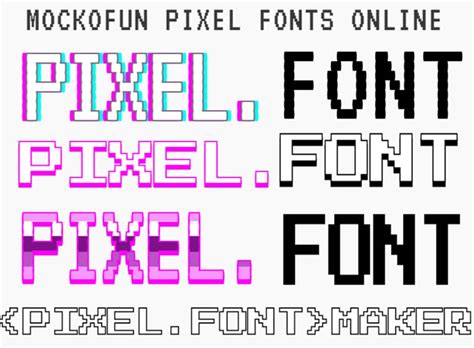
Pixify Your Text with Our Free Pixel Font Generator - Create Eye-Catching Designs Instantly!
Are you tired of using boring fonts for your designs? Do you want to add a touch of retro charm to your website or social media posts? Look no further than our free Pixel Font Generator!
This tool allows you to easily create eye-catching designs with customizable pixelated text.
Do you need a font that pops off the page and catches the reader's attention? Our Pixel Font Generator can help you with that. With a variety of styles and sizes to choose from, you can find the perfect pixelated font for your project.
But why should you choose a pixel font in the first place? Well, did you know that studies have shown that people are more likely to remember and recognize images that feature strong visual elements? By using a pixel font, you can instantly make your text more memorable and engaging.
Perhaps you're worried that creating pixelated text will be difficult or time-consuming. Fear not! Our generator is incredibly user-friendly and produces high-quality results in just seconds.
So what are you waiting for? Pixify your text and elevate your designs with our free Pixel Font Generator today!
Creating Eye-Catching Designs with Pixel Fonts
If you're looking for a way to add some visual interest to your designs, pixel fonts are a great option. Unlike other fonts, which are designed to be legible at various sizes, pixel fonts are specifically built to look their best at very small sizes.
What Are Pixel Fonts?
Pixel fonts, also known as bitmap fonts or raster fonts, are fonts that are designed on a grid of pixels. Each pixel is carefully placed to create crisp, clear letters that are easy to read, even at very small sizes.
Because pixel fonts are so small, they're often used in video games, where designers need to fit a lot of information into a limited space. But pixel fonts can also be used in other types of design, from web graphics to posters and banners.
The Benefits of Using Pixel Fonts
There are many benefits to using pixel fonts in your designs. One major advantage is that they are highly legible, even at very small sizes. This means that you can fit more text into a smaller space, giving you greater design flexibility.
Another benefit of pixel fonts is that they have a distinctive, retro feel that can add a touch of nostalgia to your designs. If you're going for a vintage look, pixel fonts can be a great way to achieve it.
Introducing Pixify: The Free Pixel Font Generator
Fortunately, creating your own pixel fonts is easier than you might think. With Pixify, our free pixel font generator, you can create custom pixel fonts in just a few clicks. Here's how it works:
Step 1: Choose Your Font Style
First, choose the style of font you want to create. Pixify offers a variety of different styles, from classic arcade game fonts to futuristic sci-fi fonts.
You can also customize your font by adjusting the height, width, and spacing of the letters.
Step 2: Type Your Text
Next, type in the text you want to use in your design. You can choose any phrase or sentence you like, and Pixify will generate a pixel font based on your input.
Comparing Pixify to Other Pixel Font Generators
Of course, Pixify isn't the only pixel font generator on the market. So how does it stack up against the competition?
Pixify vs. BitFontMaker2
BitFontMaker2 is another popular pixel font generator that allows you to create custom fonts in your browser. While both tools offer similar functionality, BitFontMaker2 has a steeper learning curve and requires more time to master.
In contrast, Pixify is designed to be intuitive and easy to use, meaning you can create custom pixel fonts quickly and easily.
Pixify vs. FontStruct
FontStruct is another popular tool for creating custom fonts, but it's not specifically geared toward pixel fonts. While you can create pixel fonts with FontStruct, the process can be more complicated and time-consuming.
With Pixify, on the other hand, you can create custom pixel fonts in just a few clicks, without needing any special design skills.
Conclusion: Creating Eye-Catching Designs with Pixify
Whether you're a graphic designer or a hobbyist, using pixel fonts is a great way to add some visual interest to your designs. And with Pixify, our free pixel font generator, creating custom pixel fonts has never been easier.
So if you're looking for an easy way to make your designs stand out, give Pixify a try today! We're confident you'll love the results.
Some of the benefits of using Pixify Your Text include: